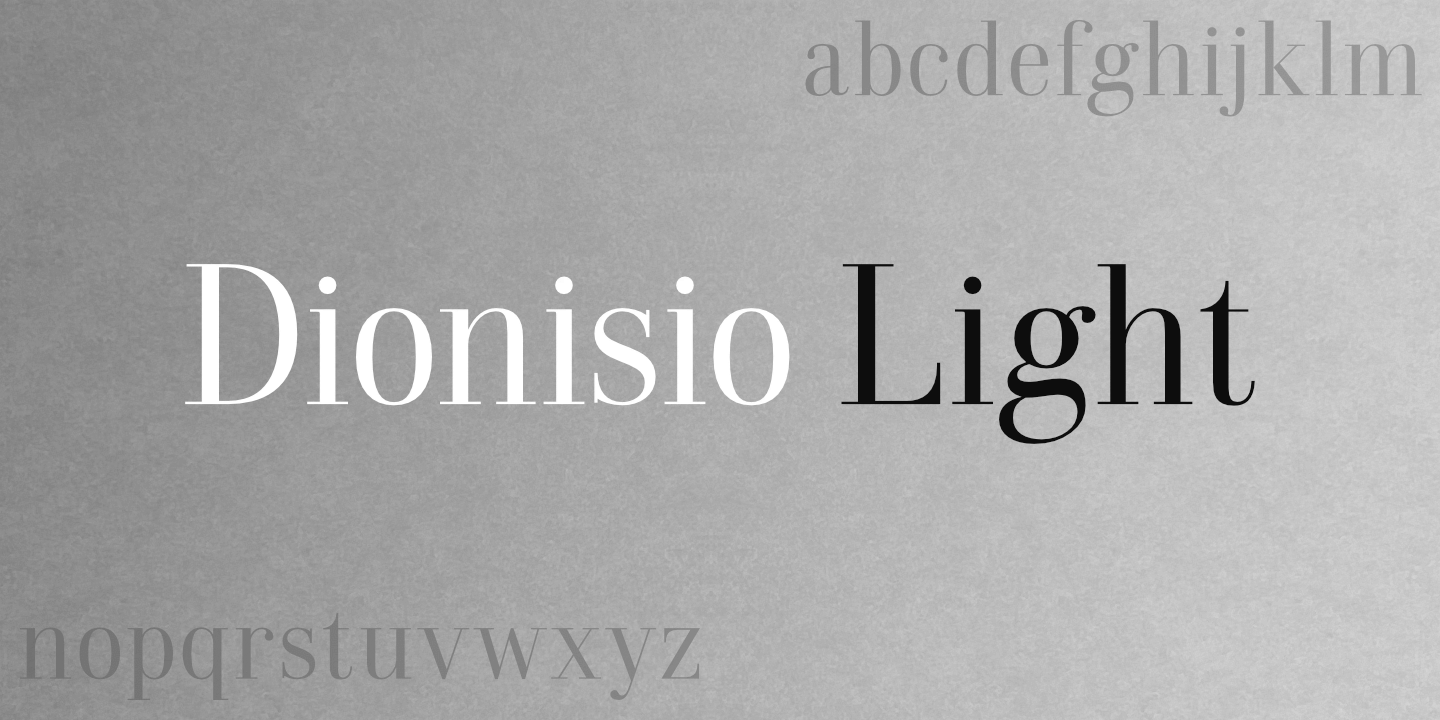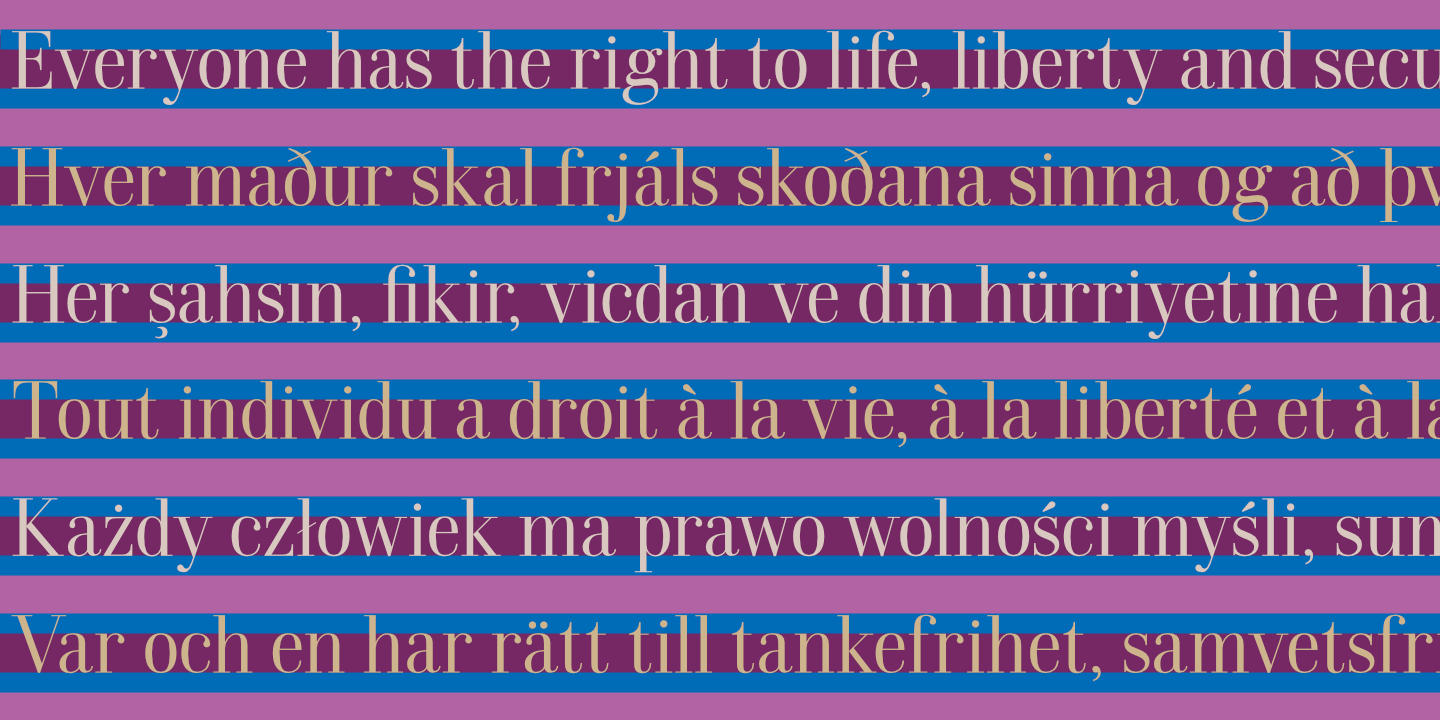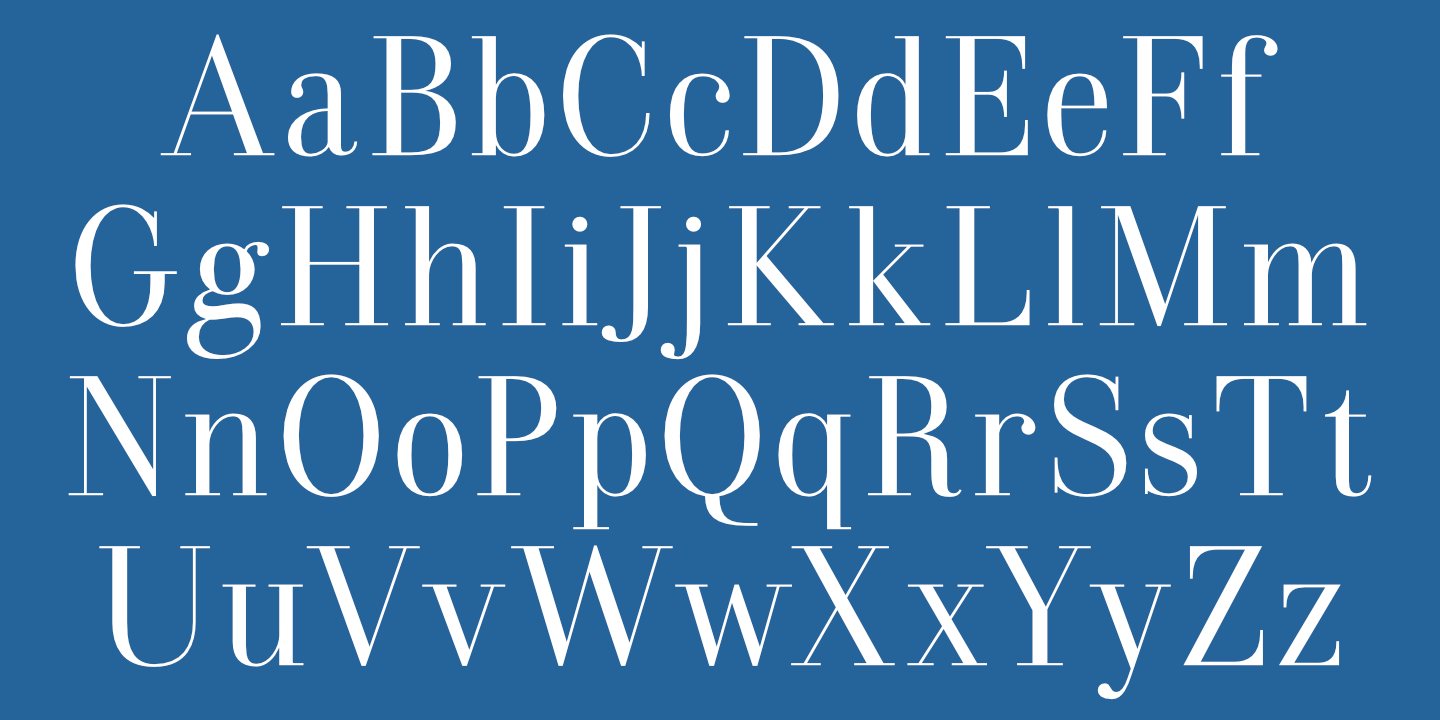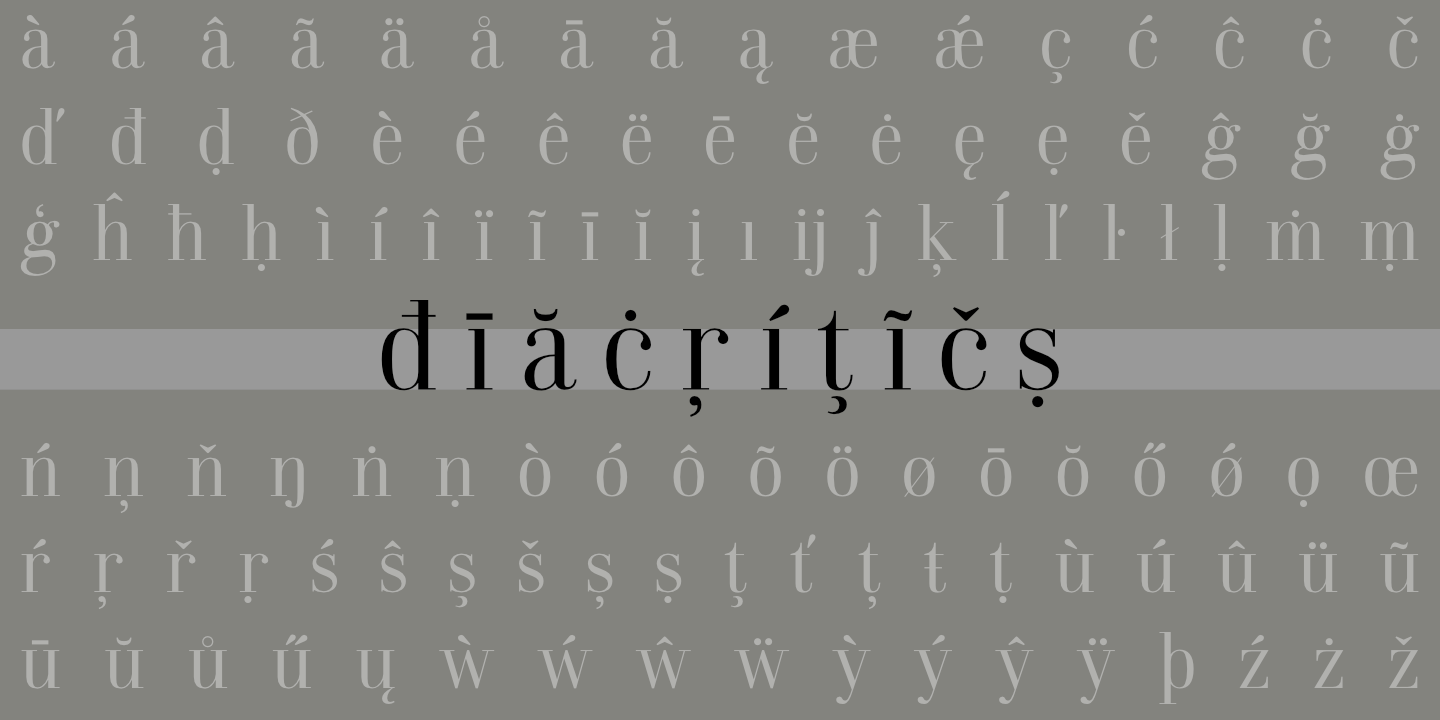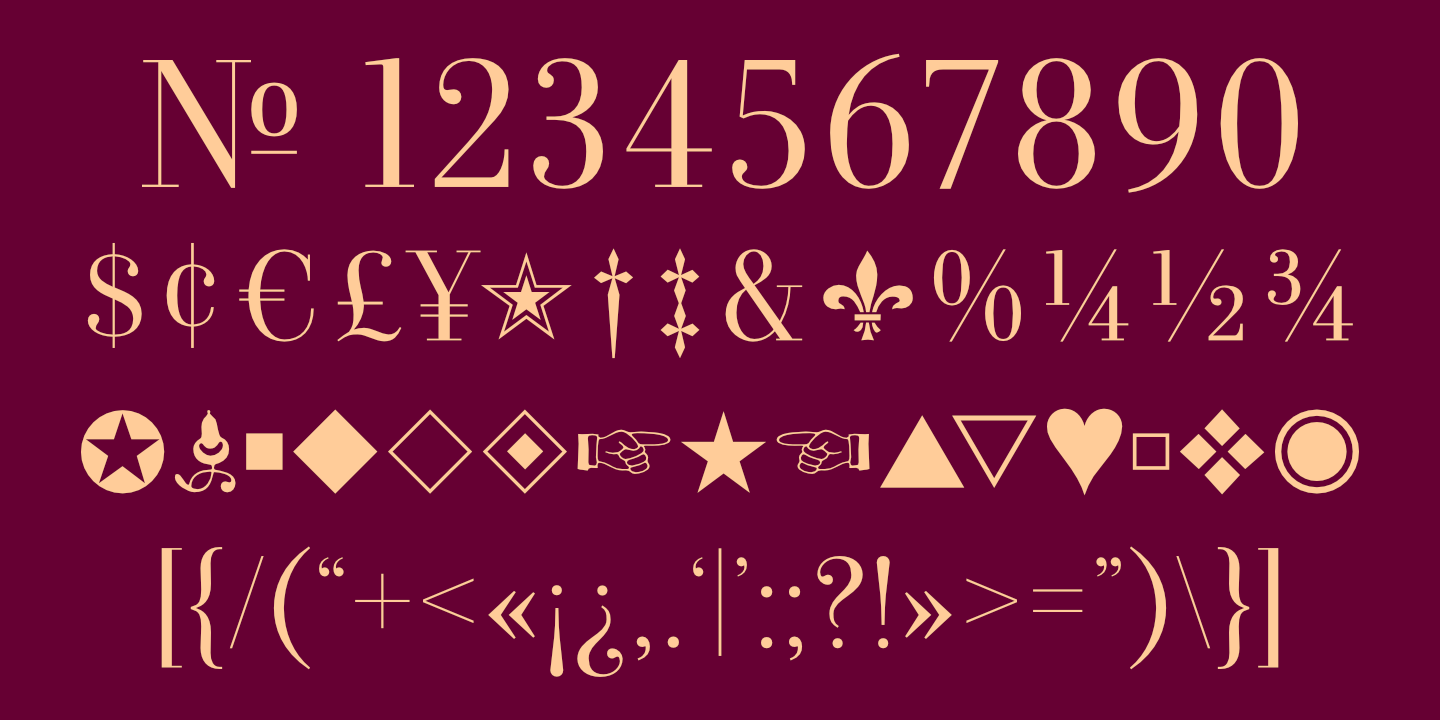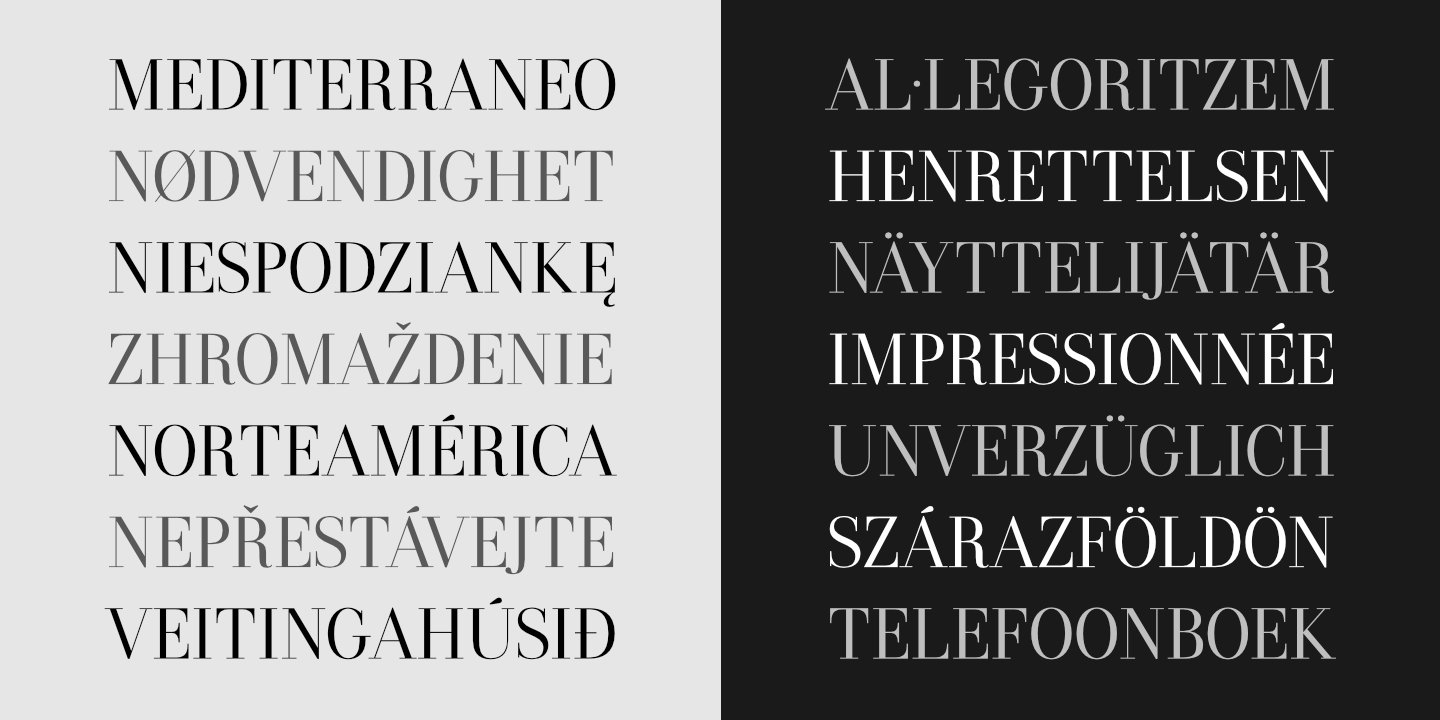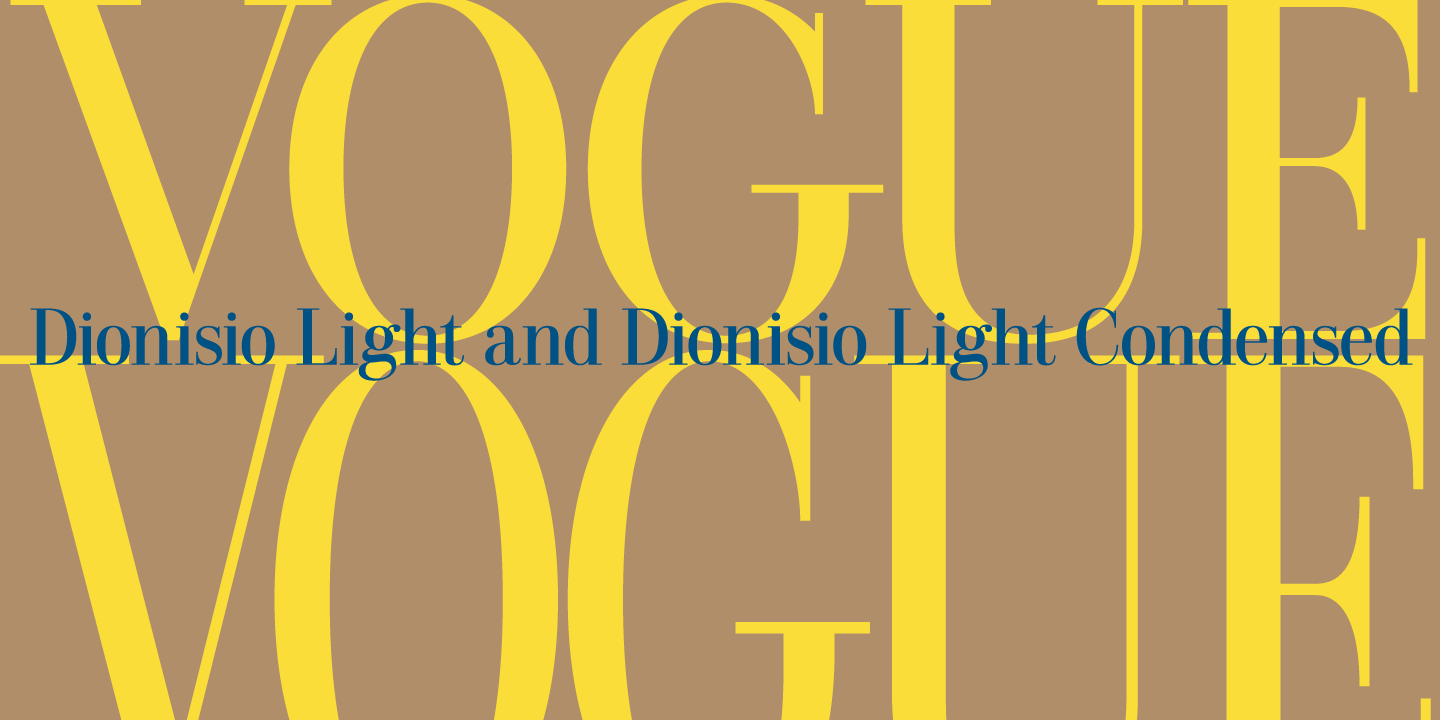
Dionisio Light: Basic Latin alphabet. See Glyphs for details.
Dionisio Light supports many European languages. See Glyphs for details.
Dionisio is available in two widths of five weights each.
Notice in particular the differences in: x-height, teardrop terminals, counters, angle of top-left serif of b, i, j, n, r.
The "Bodoni Brothers": A comparison of Dionisio, Norberto and Vincenzo with Bodoni 72 (in red).